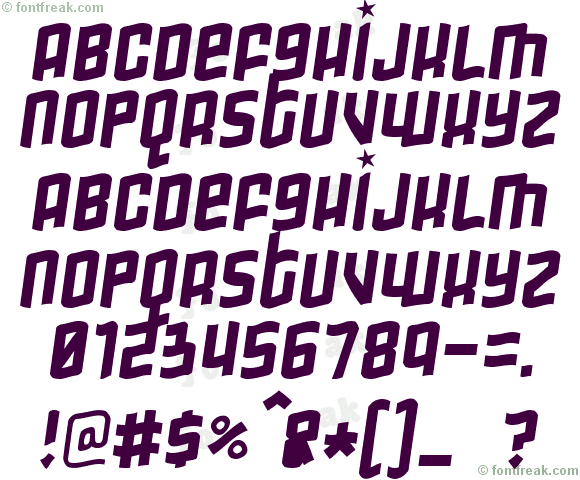
Gimmicky
Gimmicky by Pizzadude is a striking display font that captures attention with its unique style and playful character. This decorative typeface features a bold, slightly irregular stroke weight that adds a sense of dynamism and creativity to any project. With its wide letter spacing, Gimmicky ensures excellent readability while maintaining a fun and whimsical vibe. The font incorporates distinctive decorative elements, such as star motifs, which enhance its quirky aesthetic and make it perfect for eye-catching designs.
Ideal for various applications, Gimmicky shines in contexts like movie posters, where its bold presence can draw viewers in and set the tone for the film. It's also a fantastic choice for children's party invitations, lending a sense of festivity and excitement. Restaurant menus can benefit from Gimmicky's playful nature, making dishes feel more inviting and enhancing the overall dining experience. Additionally, this font works well for brand logos and promotional materials, allowing small business owners to convey a lively and approachable image.
What sets the Gimmicky font apart is its ability to balance fun and functionality. The playful, yet legible design makes it versatile for a wide range of projects, ensuring that your work stands out in a crowded marketplace. With a Gimmicky font free download, you can effortlessly infuse your designs with personality and charm, achieving a look that resonates with your audience.